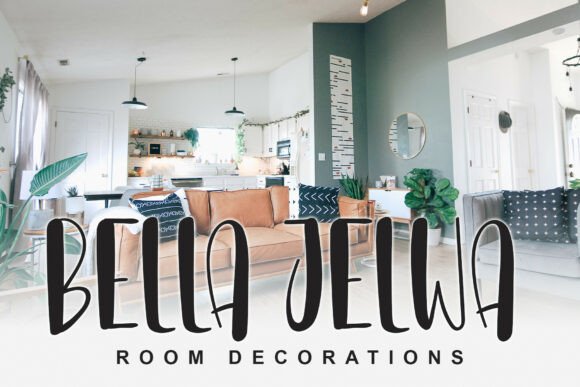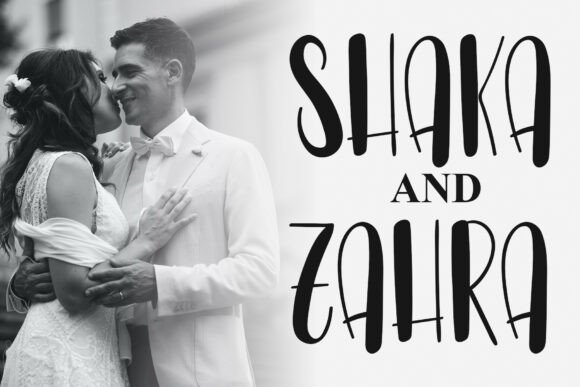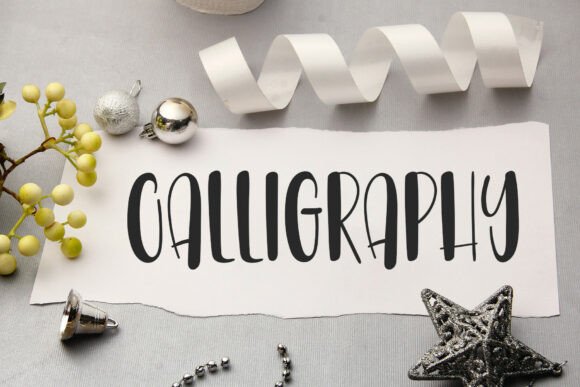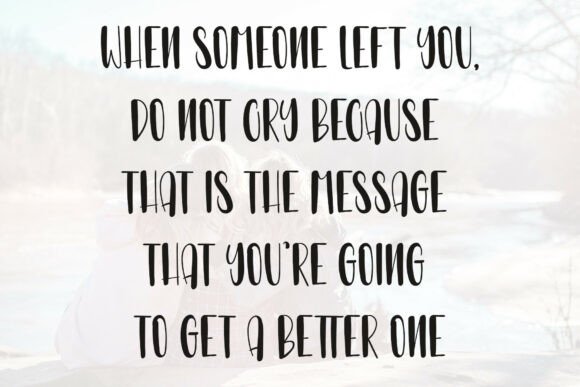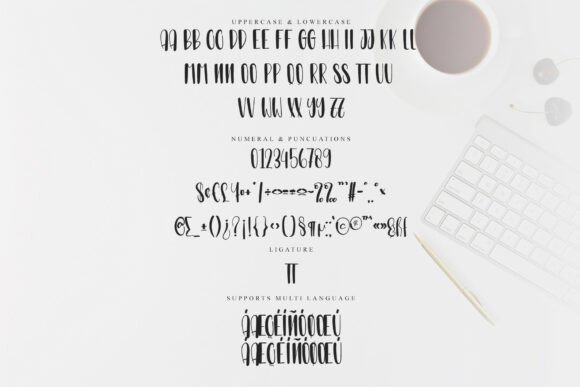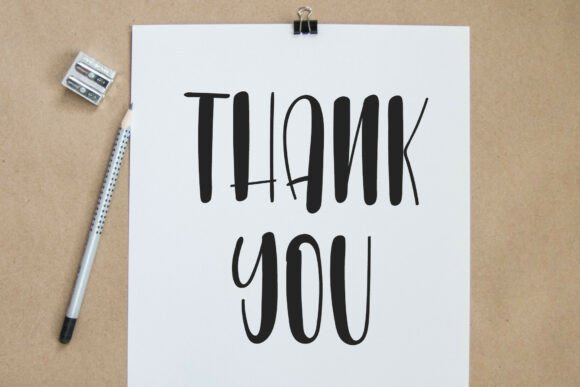
Bubble Cherry Font: Elevate Your Designs with a Touch of Elegance and Whimsy
In the world of typography, fonts play a crucial role in conveying the tone and personality of a design. For designers and crafters looking to add a touch of elegance and whimsy to their projects, the Bubble Cherry font is an excellent choice. This captivating display font combines strength and elegance, making it perfect for bold and eye-catching designs. With its unique letterforms and a touch of mystery, Bubble Cherry adds a sense of wonder and sophistication to any project.
The Unique Charm of Bubble Cherry
Bubble Cherry is not just another font; it’s an experience. Its distinctive style is characterized by bold lines, elegant curves, and a hint of playfulness. This font is designed to make a statement, whether you’re working on a branding project, a packaging design, or a digital artwork. The Bubble Cherry font is versatile and can be used in various contexts, from mystical and modern to elegant and sophisticated designs.
Key Features of Bubble Cherry Font
- Unique Letterforms: Each letter in the Bubble Cherry font is carefully crafted to stand out. The font’s unique letterforms are designed to capture attention and add a touch of personality to your designs.
- Elegance and Strength: The font seamlessly blends elegance with strength, making it suitable for a wide range of design projects. Whether you’re aiming for a luxurious feel or a bold statement, Bubble Cherry delivers.
- Versatility: From mystical and whimsical designs to modern and elegant projects, Bubble Cherry’s versatility makes it an excellent choice for designers and crafters.
- Easy to Read: Despite its unique and bold style, the Bubble Cherry font remains easy to read, ensuring that your message is conveyed clearly and effectively.
Designers and crafters are constantly on the lookout for fonts that can help them create standout designs. Bubble Cherry is a valuable addition to any design toolkit. Here are some ways you can use this captivating font:
- Branding: Create memorable brand identities with Bubble Cherry’s unique and eye-catching letterforms.
- Packaging: Add a touch of elegance and whimsy to your product packaging with this versatile font.
- Digital Art: Use Bubble Cherry to add a bold and sophisticated touch to your digital artworks and illustrations.
- Signage: Make your signage designs stand out with the font’s strong and elegant presence.
How to Use Bubble Cherry Font Effectively
To make the most of the Bubble Cherry font, consider the following tips:
- Pair with Complementary Fonts: Combine Bubble Cherry with simpler fonts to create a balanced and harmonious design.
- Experiment with Colors: Try different color schemes to see how they interact with the font’s unique style.
- Play with Sizes: Use varying font sizes to create visual hierarchy and emphasize key elements in your design.
Bubble Cherry font is a captivating display font that combines strength and elegance, making it perfect for bold and eye-catching designs. With its unique letterforms and a touch of mystery, this charming font adds a sense of wonder and sophistication to any project. Whether you’re aiming for a mystical, modern, or elegant look, Bubble Cherry is the font that enchants and inspires. Designers and crafters can leverage this versatile font to create memorable and impactful designs across various mediums.